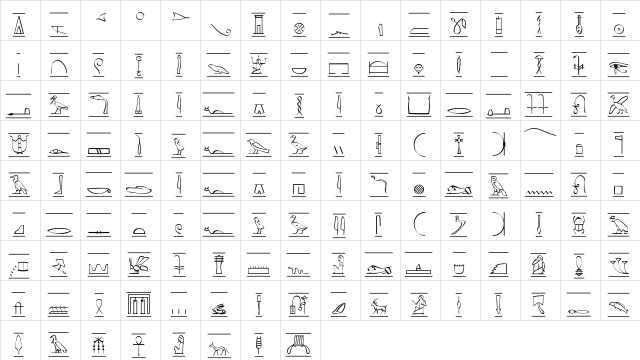
Hieroglyphic Cartouche
| Style | Cartouche |
Design Context for Hieroglyphic Typeface
Hieroglyphic is a composed and adaptable typeface that performs quietly and consistently across a wide range of design contexts.